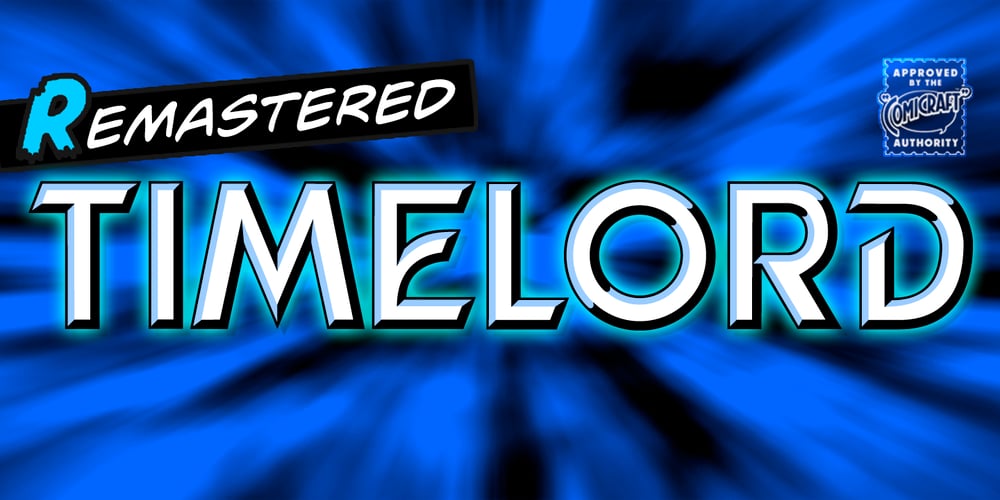
Timelord Font Family was designed by Richard Starkings, John Roshell and published by Comicraft. Timelord contains 5 styles and family package options. VWORP! VWORP! This font will travel through the four dimensions of time and space to materialise on your hard drive. TIMELORD was originally created for Telos publishing’s line of DOCTOR WHO novellas.